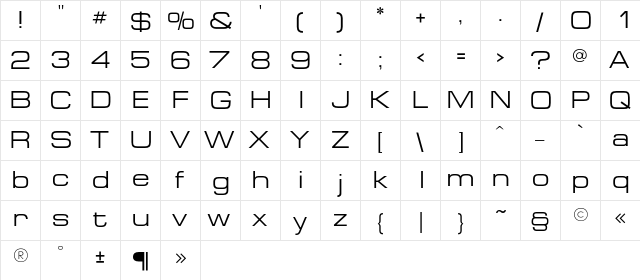
EuropeExt Regular Font Preview
EuropeExt Regular
Design Context for EuropeExt Typeface
EuropeExt offers clean, dependable letterforms without strong stylistic allegiance, making it a practical choice for designers who need flexibility.
Pro Tip: Use EuropeExt in both headline and body roles to test its range before committing to a single application.